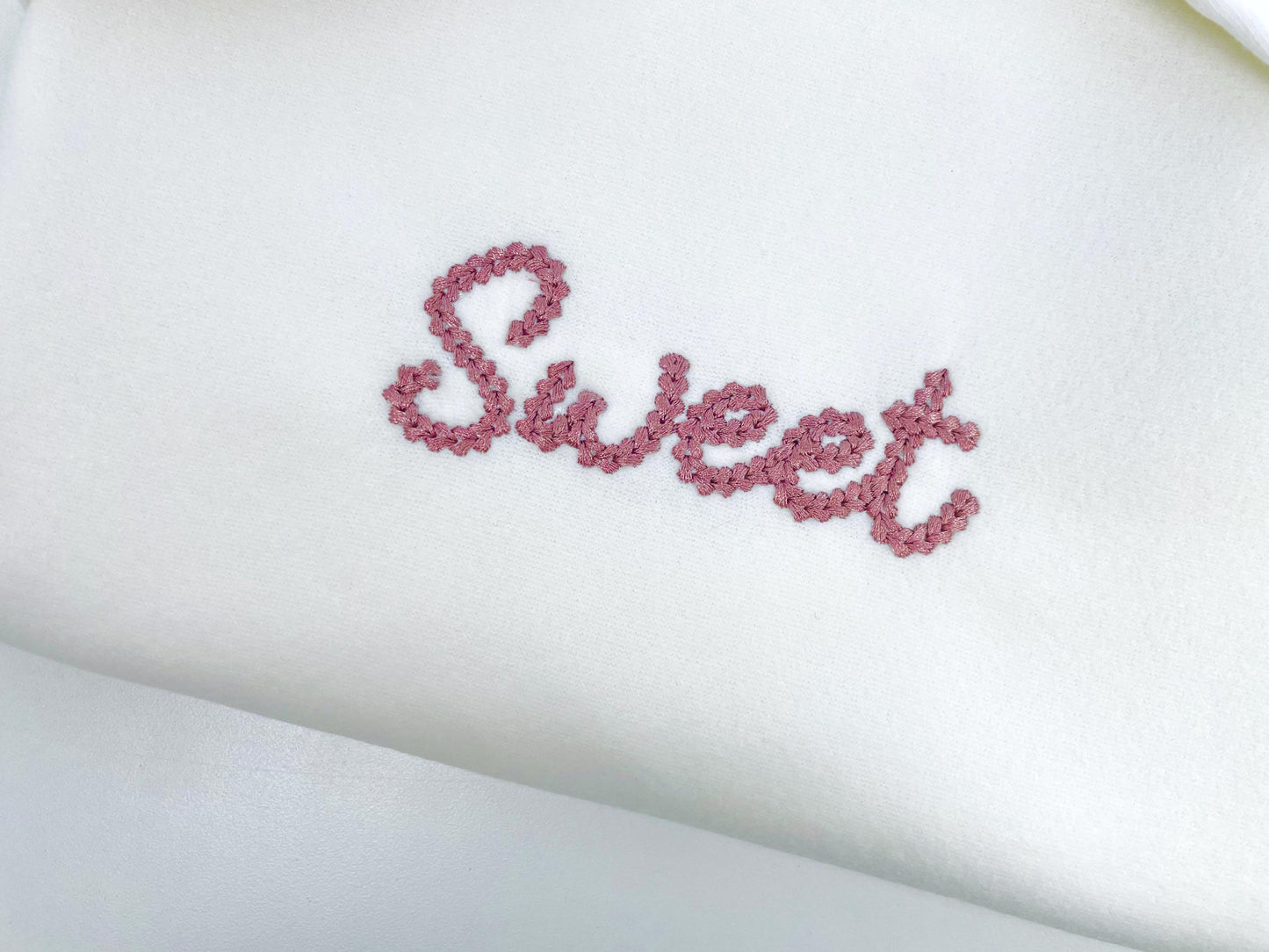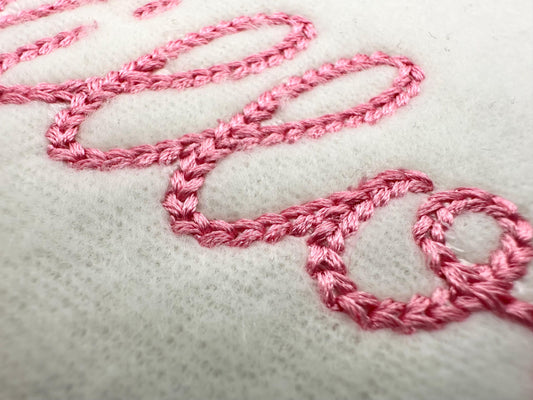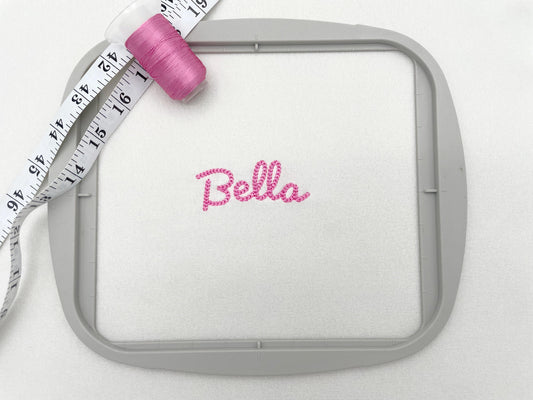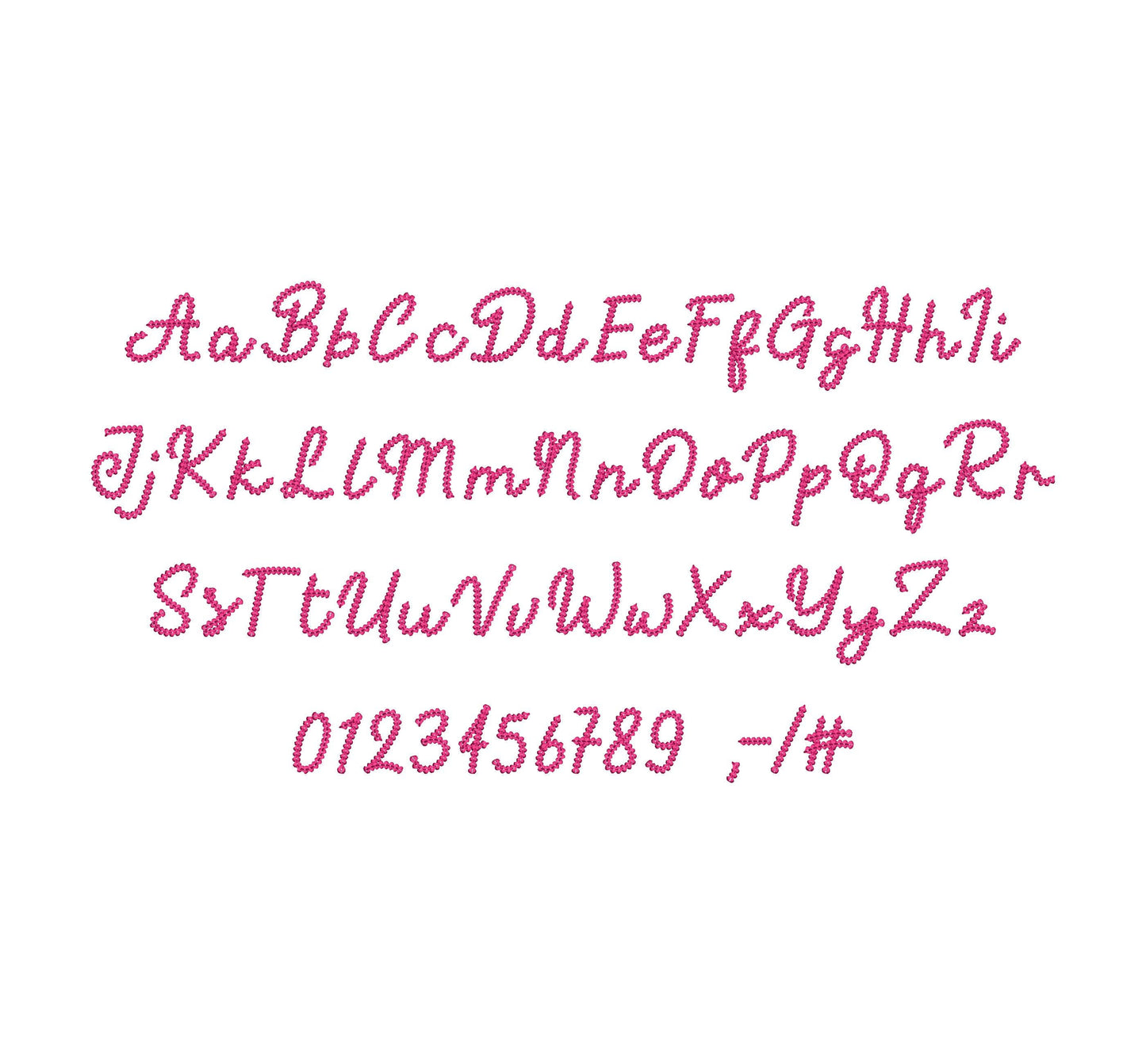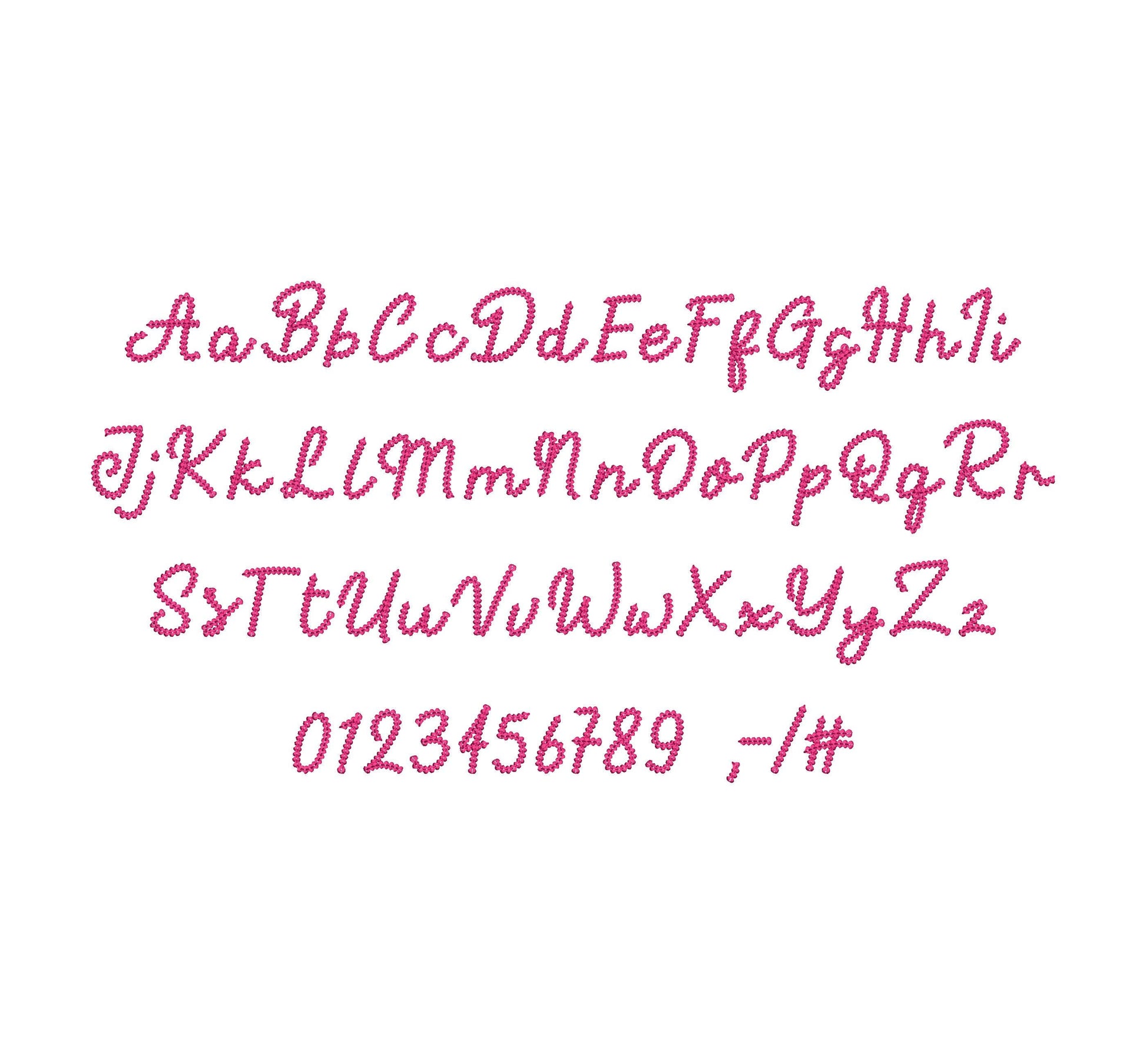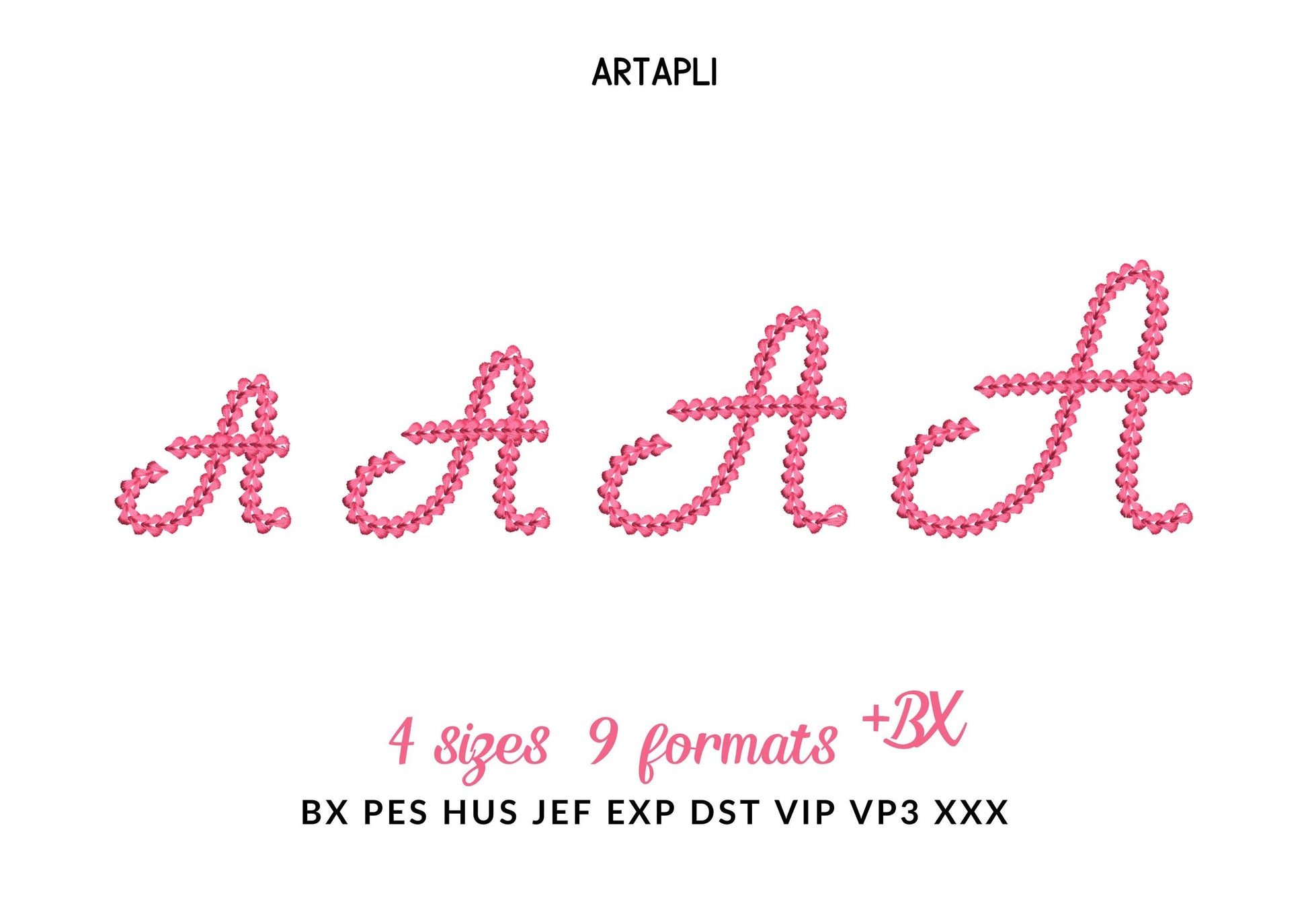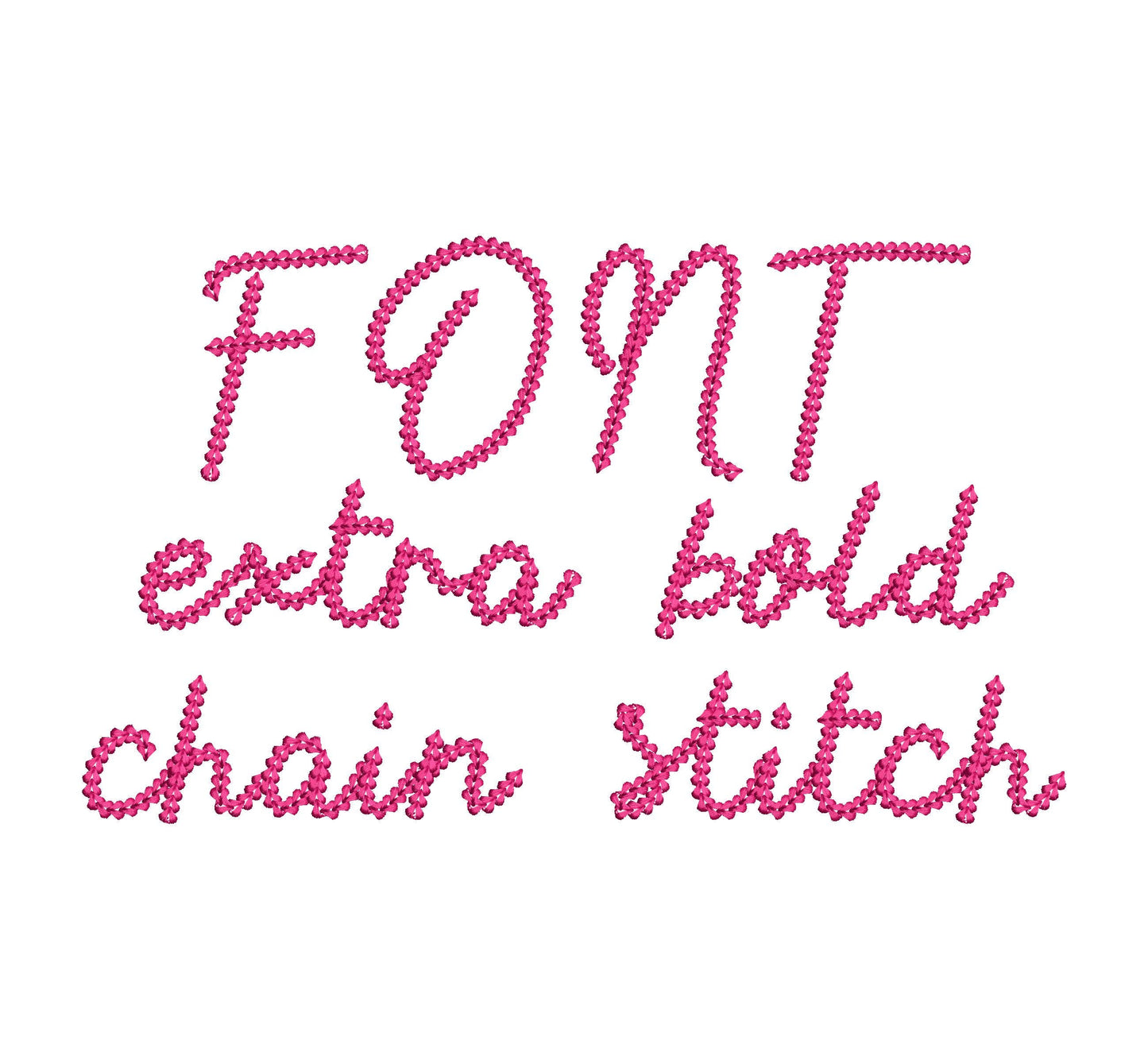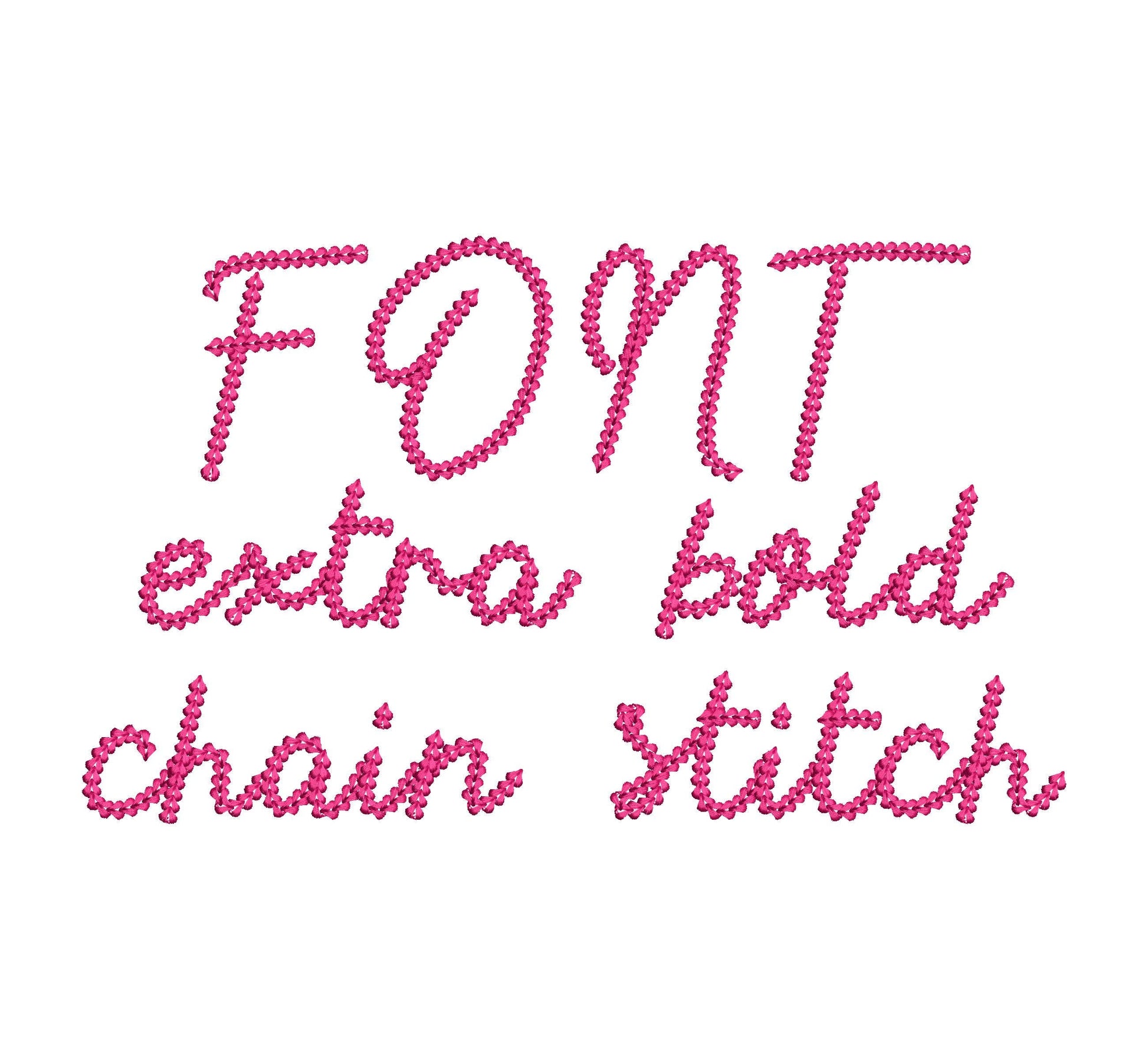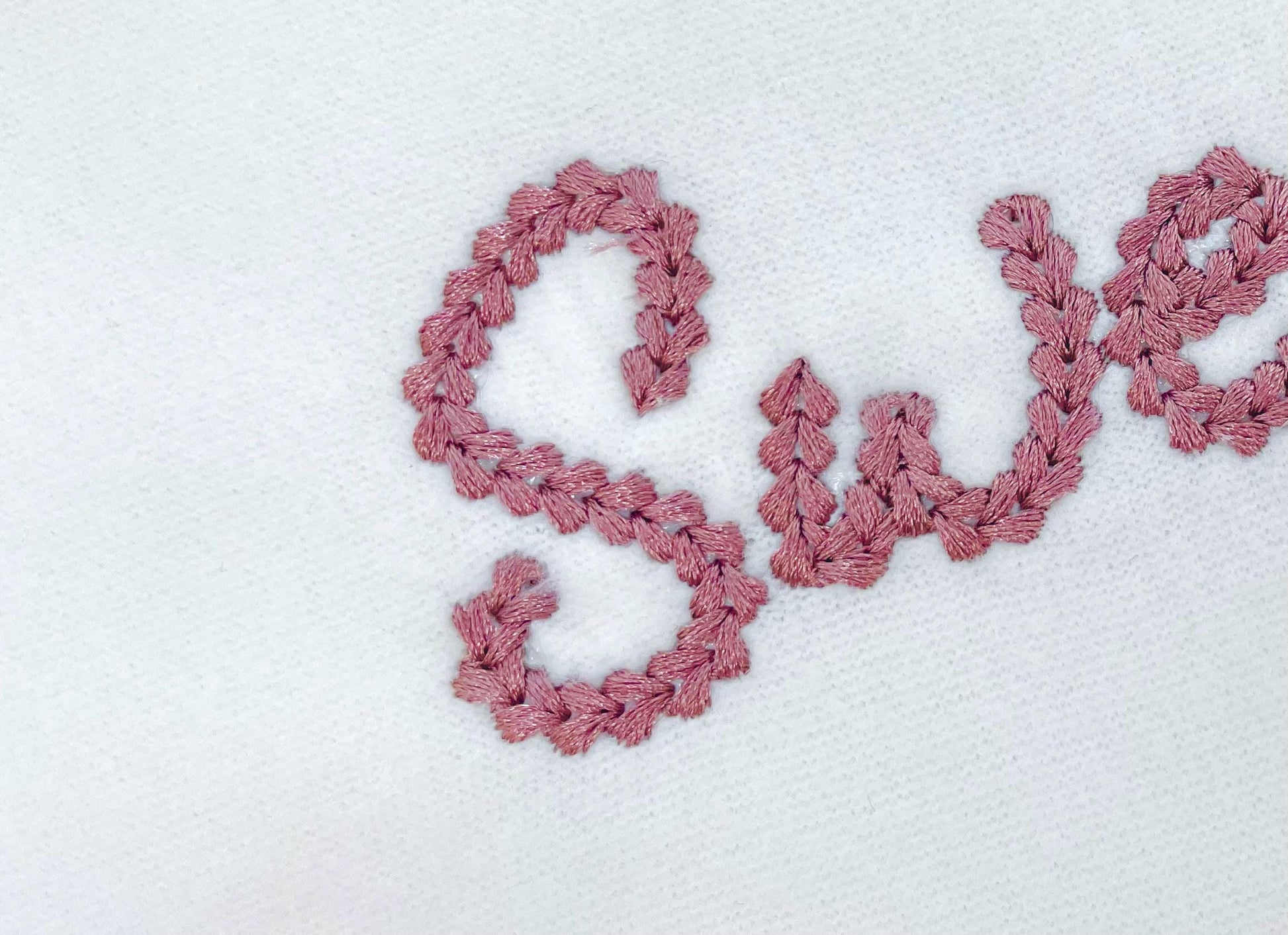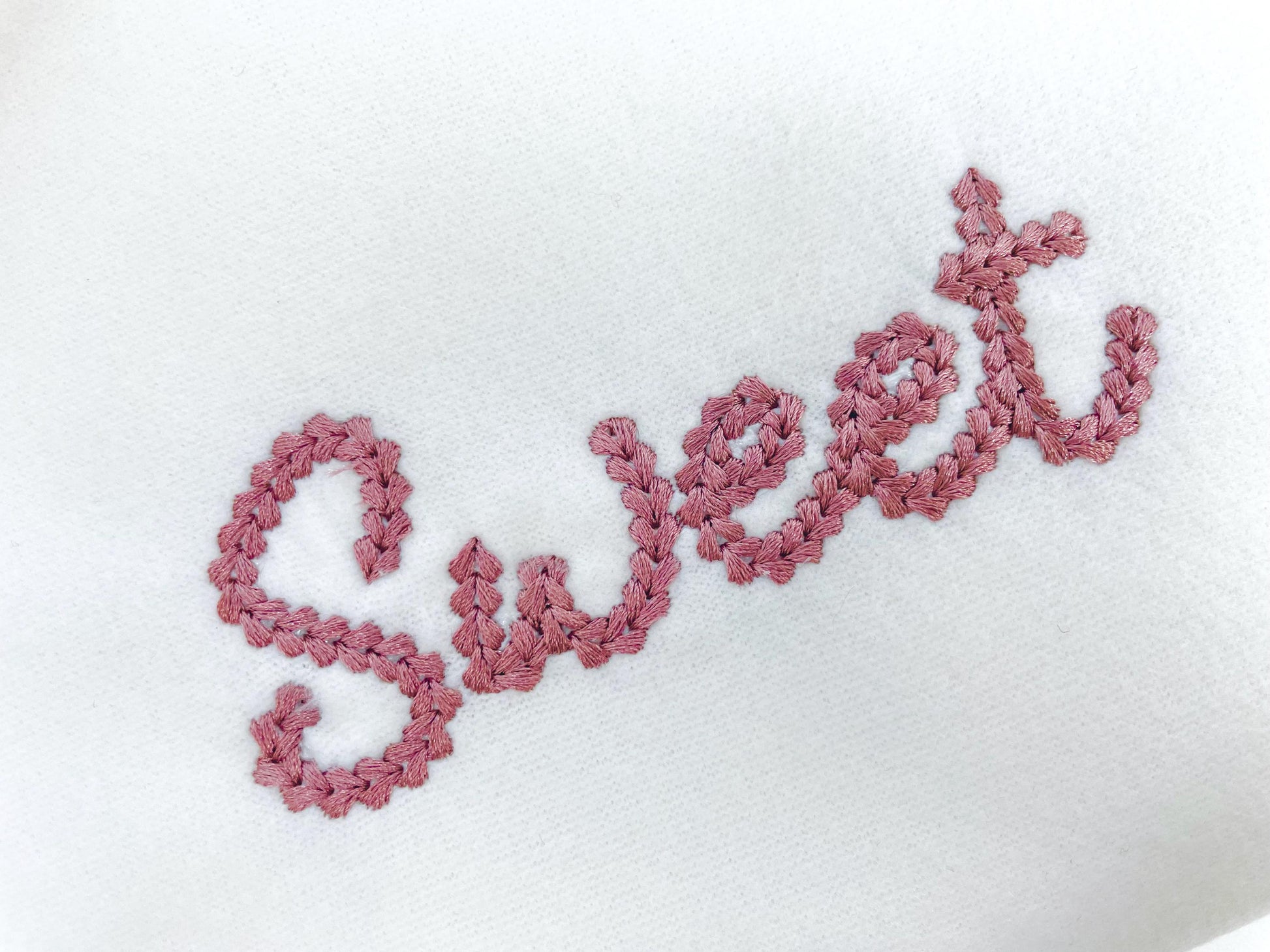
Extra Bold Chain Font Whirly
Or click to open the linkAn extra bold chain stitch handwritten font with a knit look. Cozy for names on sweaters, beanies and blankets.
The letters come in four sizes: 2.1, 2.5, 3 and 3.6 inches. A thick chain stitch gives each letter a handmade, knitted look. Includes uppercase and lowercase letters, numbers 0 to 9 and punctuation.
- Extra bold chain stitch script font